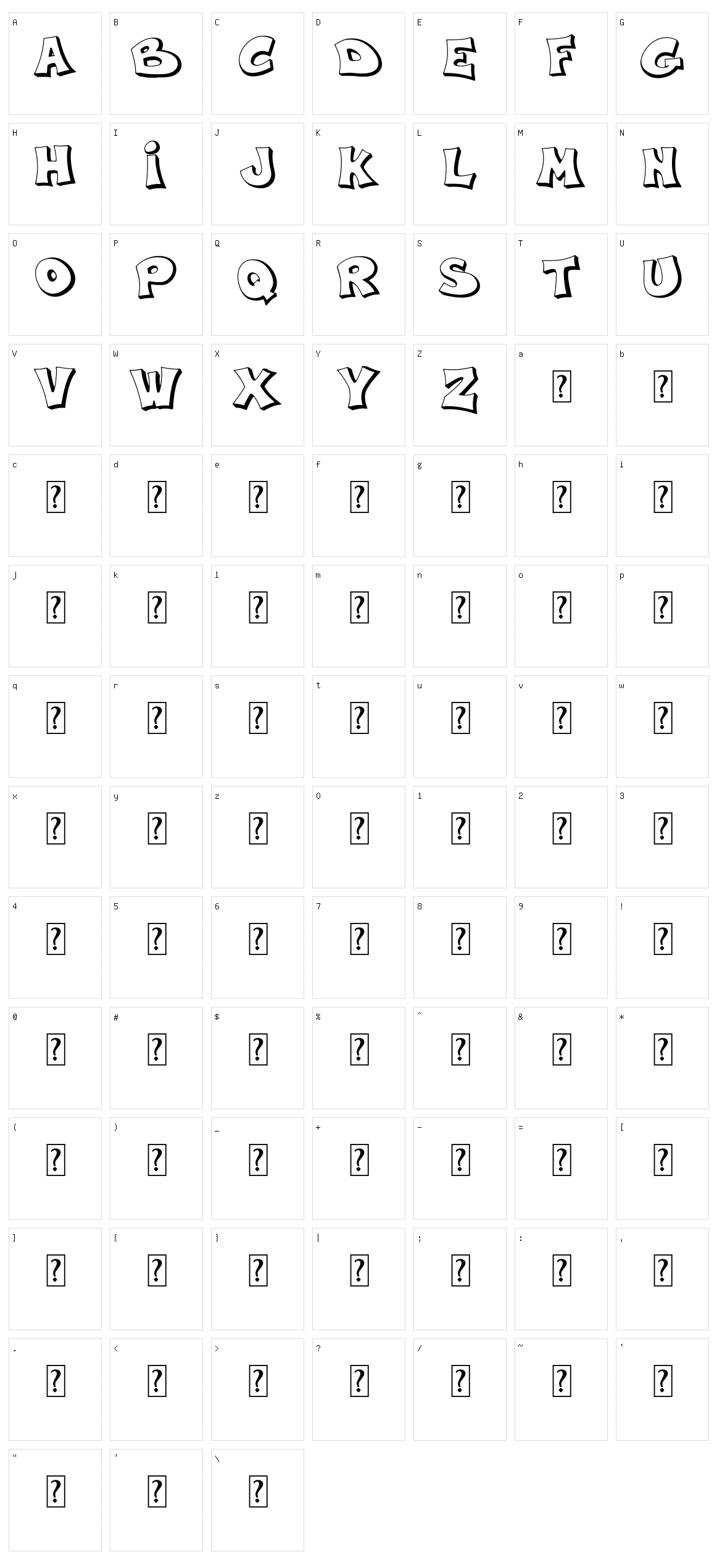
The free font Comic Boom Bubble is carefully designed by fontsandfashion, showcasing a thoughtful balance of creativity and usability and falls under the Cartoon font style. When you download the ZIP file, it contains only 328.67 KB of font files, making it lightweight and quick to download. Please review the license details below to understand permitted usage and distribution rights. If license information is not available, we recommend using this font for personal projects only or contacting the author directly for commercial usage permissions.